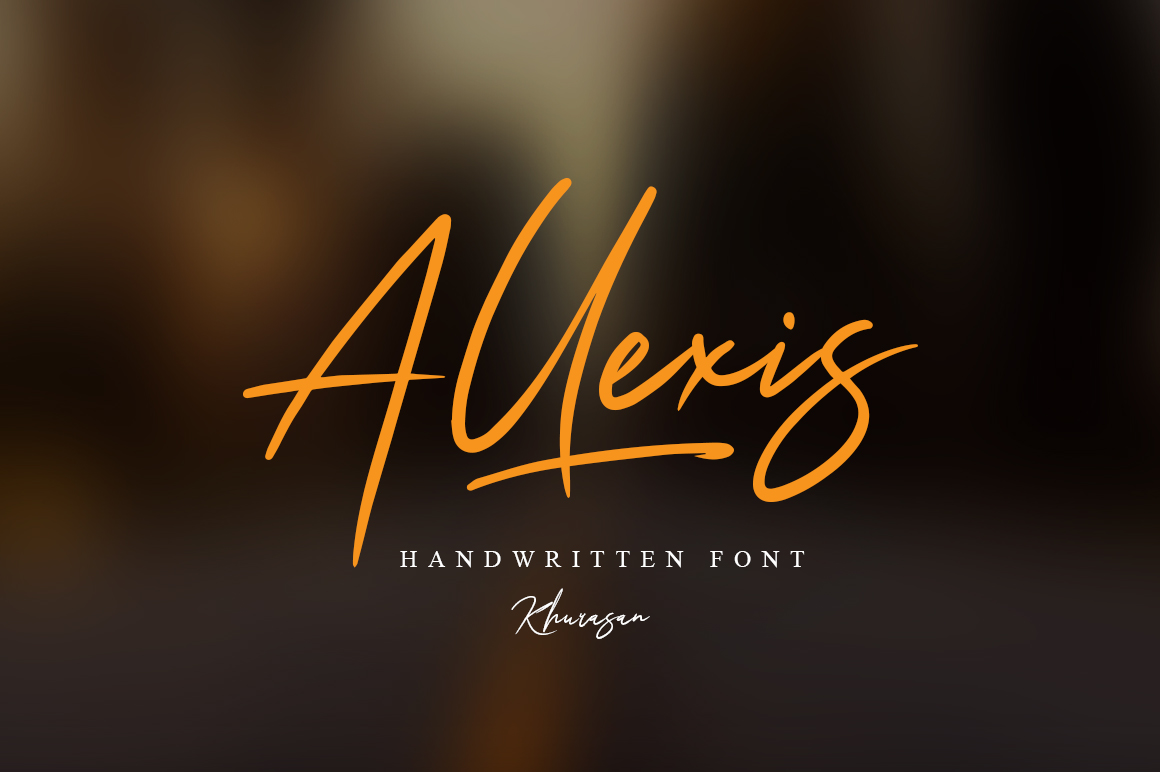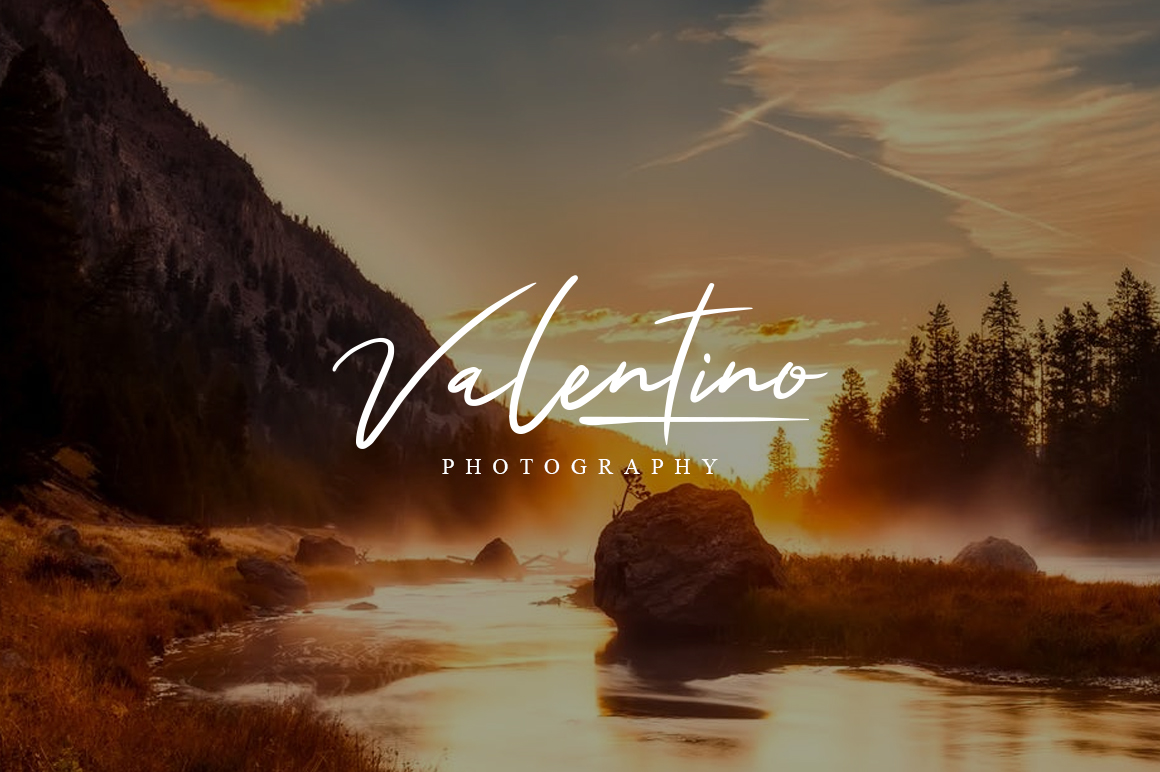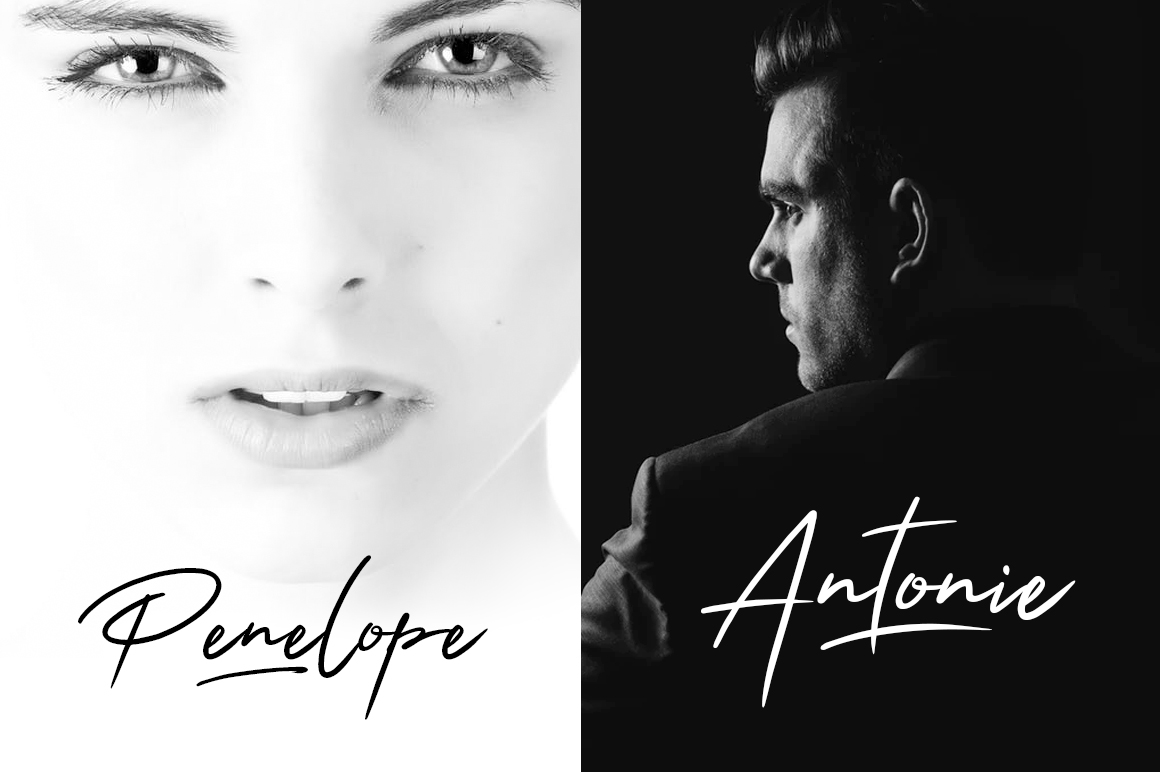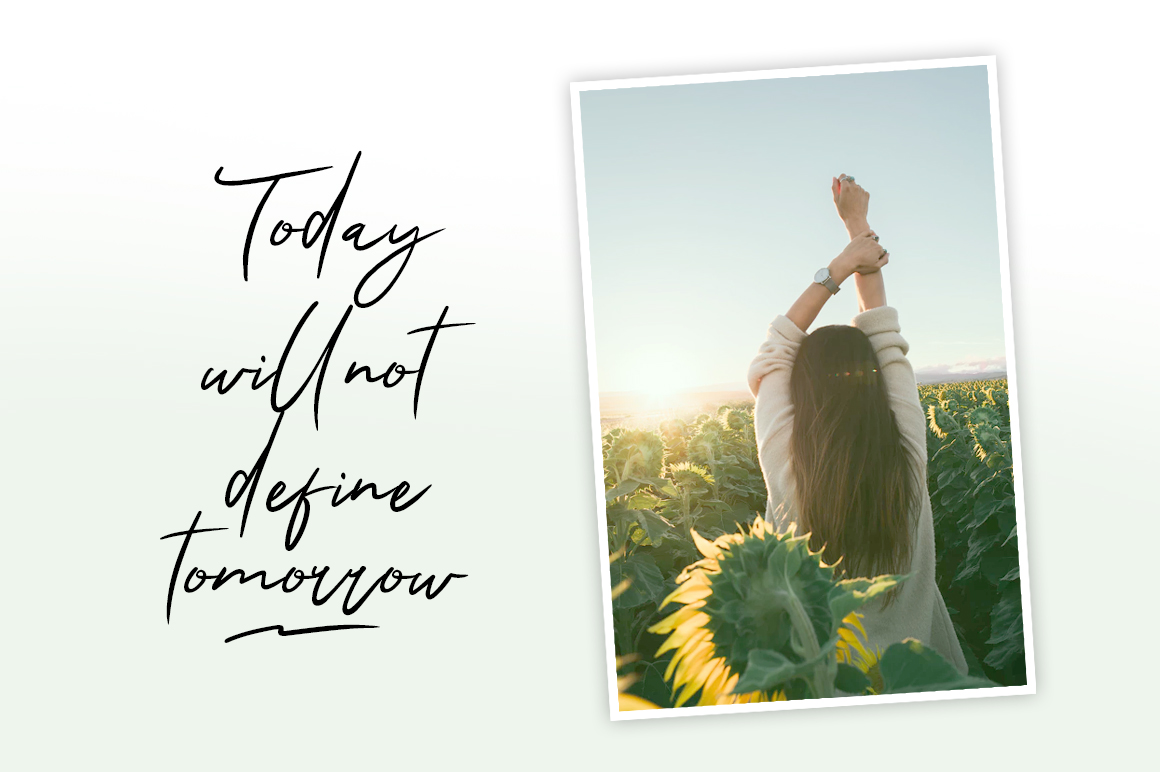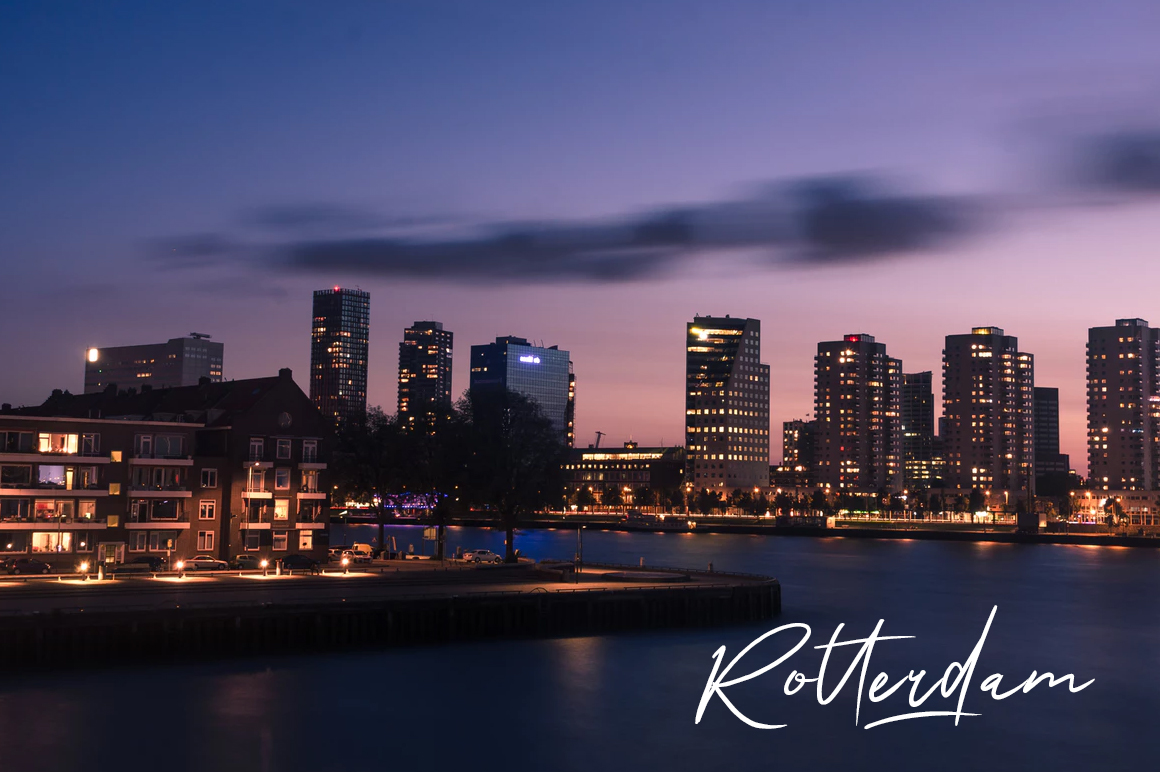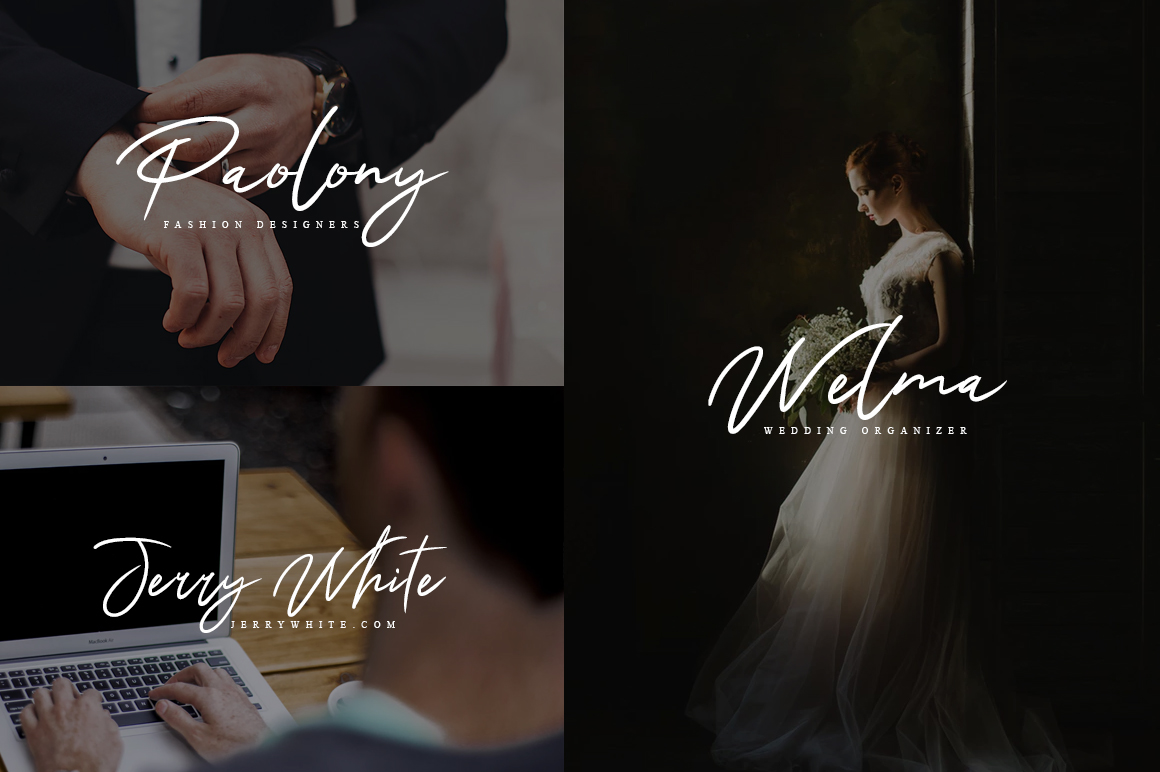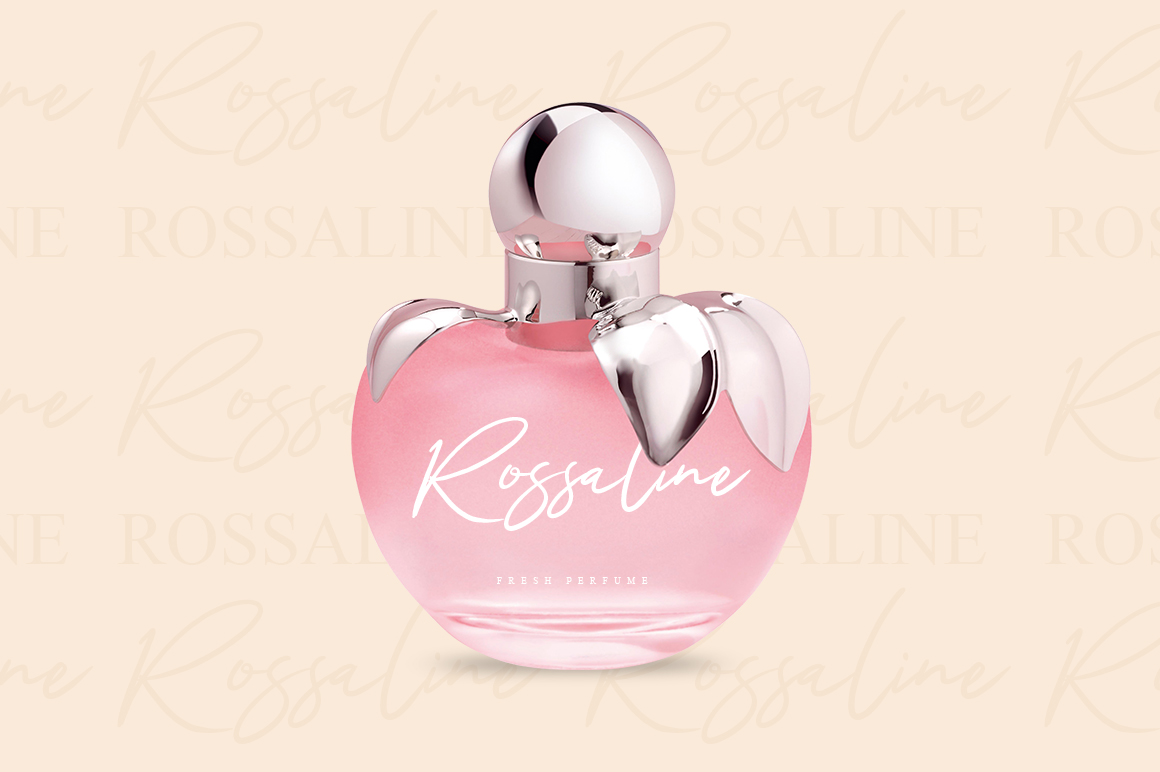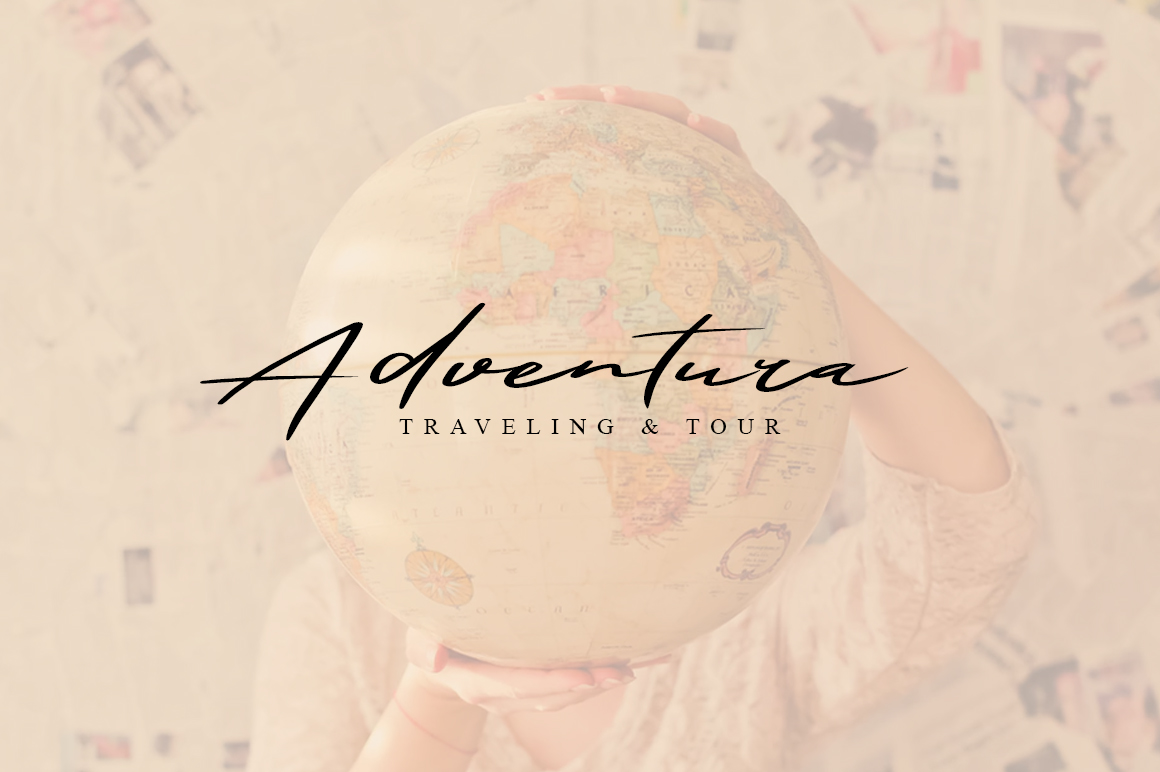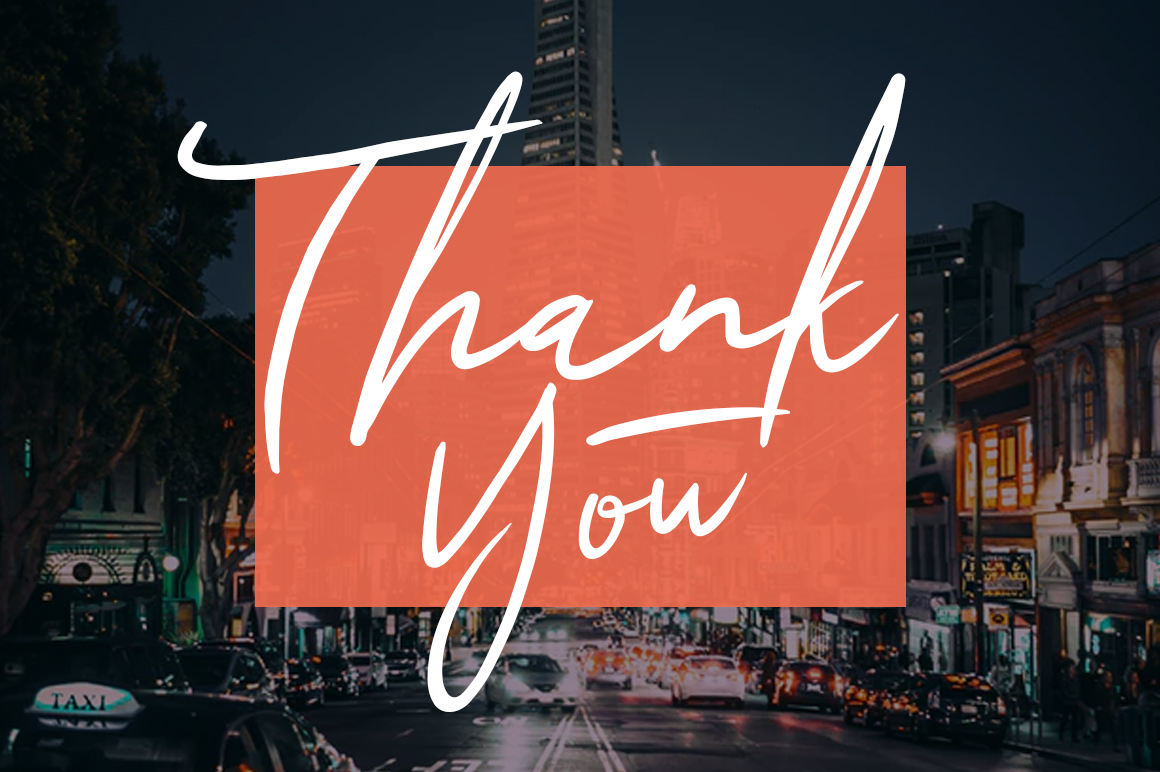
Allexis Font
Allexis is a gorgeous script font, ideal for projects that need a touch of casual elegance. This signature font is a great way to give your branding an authentic vibe, and works well as logotype and in editorials.